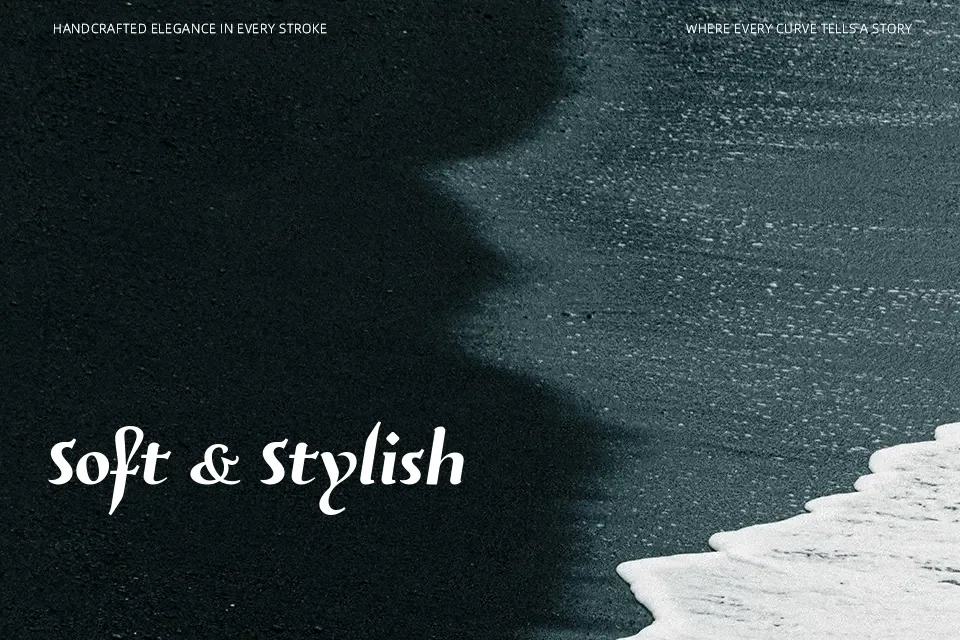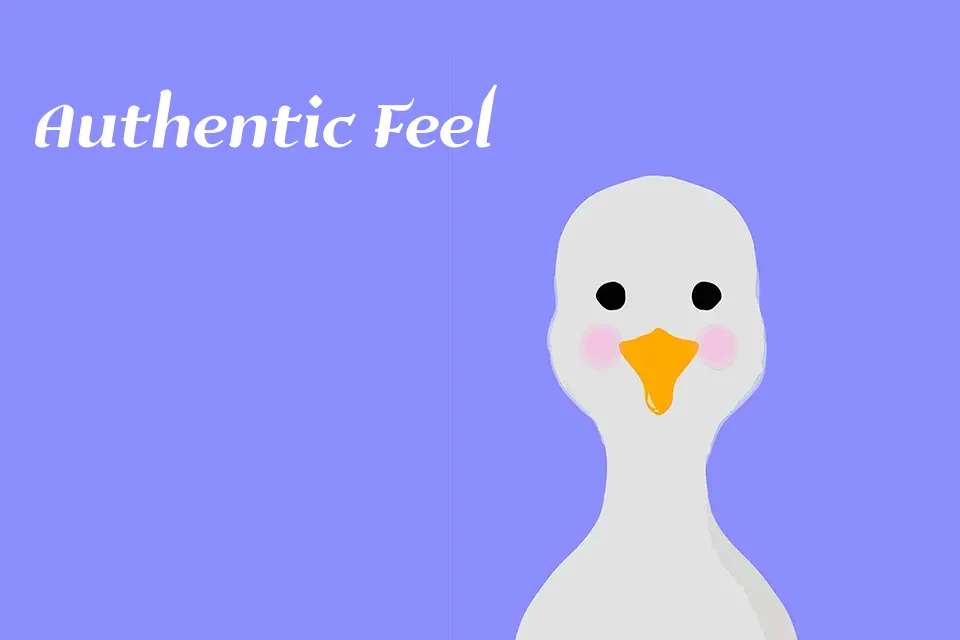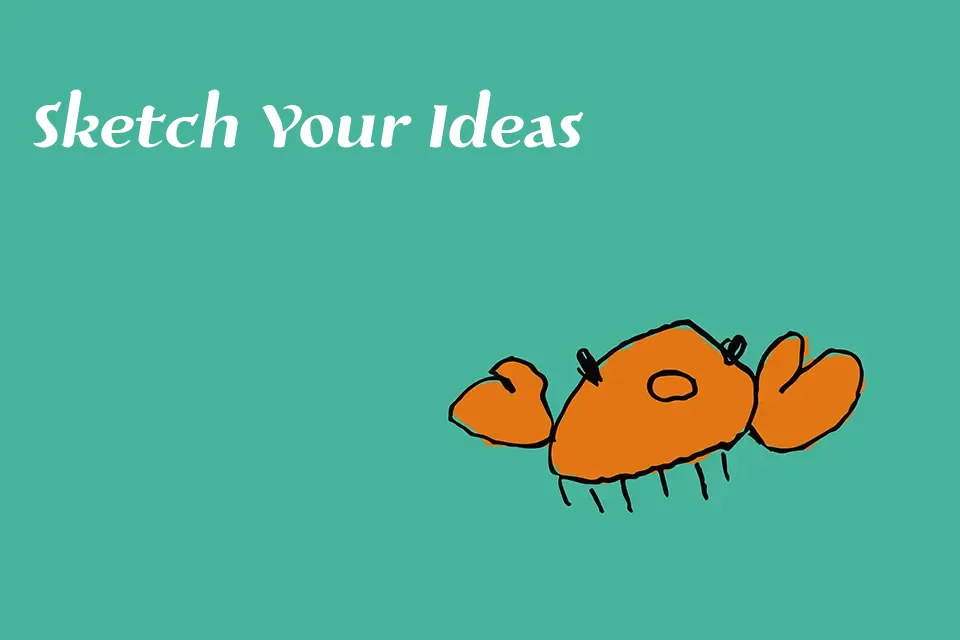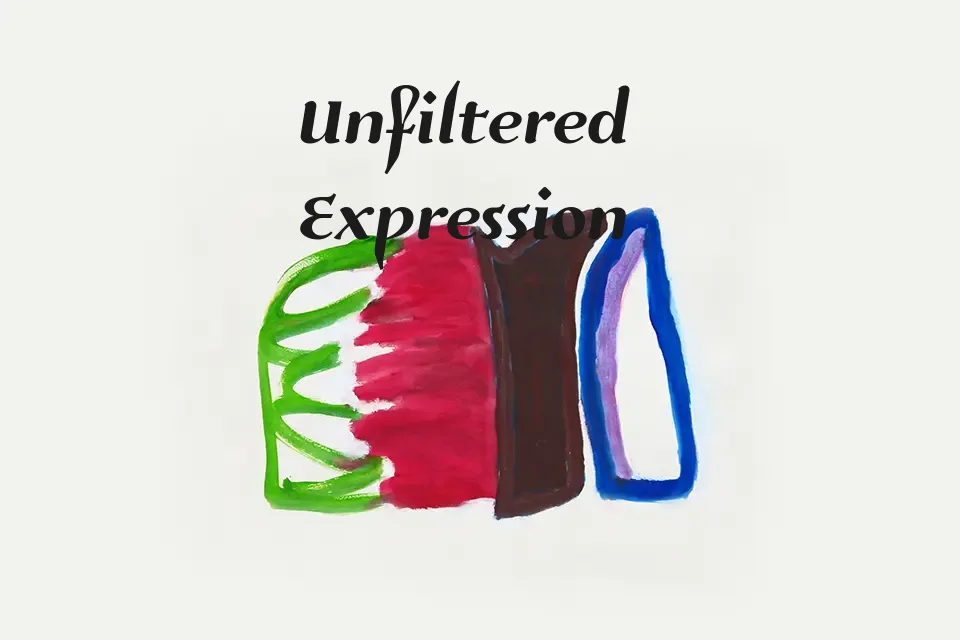
Risaltyp Font
Designed by gluk
Characterized by a free-flowing structure and bold strokes, Risaltyp Font features disconnected, cursive-style letterforms that bring a dynamic rhythm to any canvas. The rounded terminals and smooth contours establish a friendly, artistic presence while maintaining strong visual impact in larger sizes. Generous spacing between the unconnected characters helps preserve clarity in brief display text, ensuring that the playful aesthetic does not overly compromise legibility. This highly decorative typeface excels in creative branding, lively logo designs, and inviting greeting cards. However, the stylized, bouncy baseline and heavy letterforms make it less suitable for dense, multi-line paragraph text. The distinct separation of glyphs works well for short headlines, but continuous reading becomes fatiguing due to the lack of traditional script flow.
lively greeting cards
playful brand logos
creative packaging headers
Perfect for branding, headline, and invitation, with a artistic and decorative style.